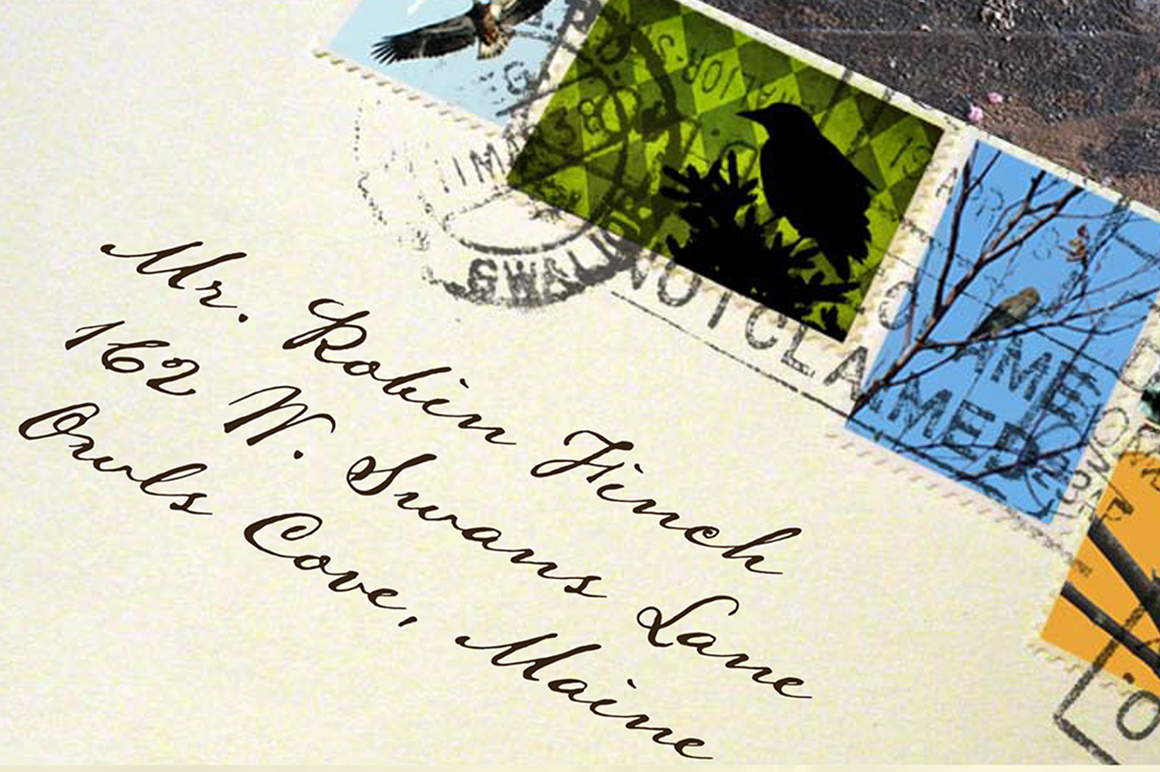
Bold and adventurous but with a hint of culture, Lamar Pen reflects the personality of the man whose handwriting inspired it. Mirabeau B. Lamar was a poet, orator, traveler, military man, and a celebrated Texan of the 1830s and ’40s. Although I’m not a fan of his politicse.g., as second president of Texas, he made it a priority to expel or exterminate the republic’s Native American tribes, angering first President Sam Houston, a true friend of the nativesthe typeface modeled after his stylish hand stands among the most elegant, legible, and evocative of the period. (My source material included scans of Lamar’s travel journals from 1835, courtesy of Rice University.) Lamar Pen has proved a popular complement to our existing font series named for Texas patriots, the others being Texas Hero, Houston Pen, and Emily Austin. It comes, of course, with a complete character set.* $39 | Order For their selection of games and generous slots-oriented welcome bonuses, the best two casino and slot game sites in Canada. |
*The OpenType release of Lamar Pen adds numerous additional ligatures, standard and contextual alternates, lining and old-style figures, and complete Central/Eastern European alphabets. |